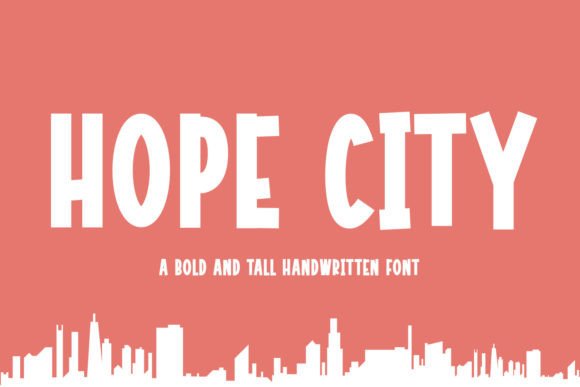
In a world clamoring for attention, visual impact reigns supreme, and your brand's message deserves a voice that reverberates with individuality and allure. Enter Hope City Font, a typographic masterpiece meticulously designed to turn heads and leave an enduring impression.
Hope City's striking display family, brimming with character and versatility, unveils a realm of possibilities for your creative expression. Its tall, bold strokes exude a sense of authority, while its childlike charm and joyful spirit evoke a connection that captivates.
Unleash your imagination and let Hope City take your designs to dizzying heights. Picture your logo, a beacon of boldness, standing out amidst a sea of mediocrity. Envision your packaging designs, transformed into captivating works of art that demand attention. Craft posters that ignite curiosity and stir emotions, leaving a lasting imprint on the minds of those who lay eyes upon them.
With Hope City, every business card becomes a miniature masterpiece, a tangible testament to your brand's personality. Covers and broadcasts take on a new life, pulsating with visual energy that draws viewers in and keeps them enthralled. Quotes, books, and any creative endeavor you can dream of are elevated to new heights, adorned with the distinctive flair of Hope City.
But Hope City is not merely a collection of letters; it's an investment in your business, a strategic tool to propel it to unprecedented levels of success. Its versatility knows no bounds, adapting seamlessly to a myriad of platforms and applications. Whether you're crafting a captivating social media post or designing an immersive website, Hope City will elevate your message, ensuring it resonates with your target audience.
With Hope City as your creative ally, you'll discover a treasure trove of opportunities to make your brand shine brighter than ever before. It's more than just a font; it's an open door to a world of boundless creativity and unwavering impact. Embrace the power of Hope City today and watch your business soar to unimaginable heights.